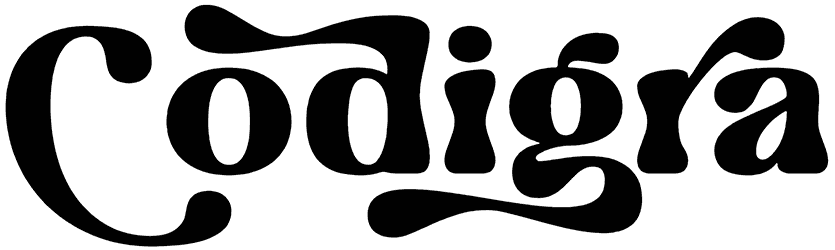
Codigra Font
Throw a charming and classic vibe into your creative design with this retro font to mesmerize your audiences. This groovy font has bulky and soft letters that will make a unique face for your layout. Use the Codigra font for your drama movie poster or anything else, and leave a lasting impression on your viewers.